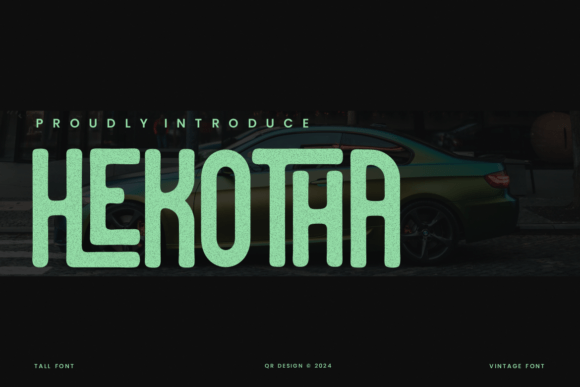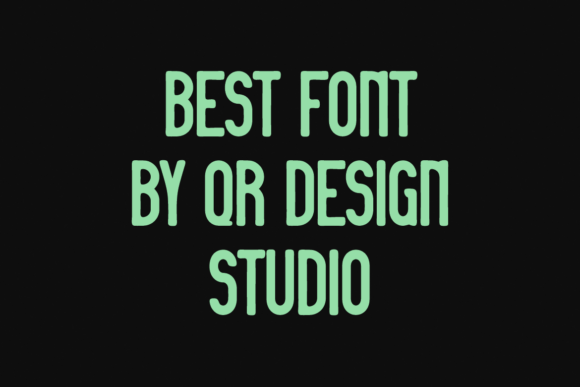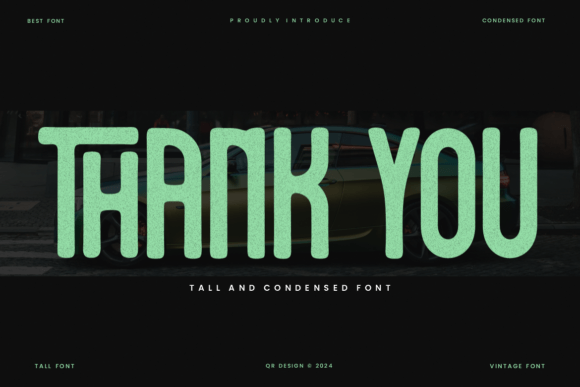
Introduction to Hekotha Font
You know that moment when you’re brainstorming ideas for your next creative project, and the perfect font pops into your mind, elevating your concept to the next level? That’s exactly what happened when designers discovered the Hekotha Font. Its unique blend of modern and vintage elements makes it an instant favorite among creatives.
With its clean, stylized character forms, the Hekotha Font is a game-changer for designers looking to add a high-quality touch to their work. Whether you’re working on branding, editorial layouts, or poster design, this font is sure to make a statement. And the best part? It’s available for free download, making it an accessible design resource for anyone looking to take their creative project to the next level.
One of the standout features of the Hekotha Font is its versatility. Pair it with transparent backgrounds and urban or automotive-themed visuals, and you’ll get a stylish, high-impact finish that’s sure to grab attention. Whether you’re a seasoned designer or just starting out, the Hekotha Font is a valuable addition to your design toolkit.
Key Features of Hekotha Font
- High-quality, professional font suitable for creative projects and design resources.
- Features a transparent background, making it ideal for use on images and other design elements.
- Includes a range of characters and glyphs, including uppercase and lowercase letters, numbers, and punctuation marks.
- Designed with a modern, clean aesthetic, making it perfect for use in logos, branding, and other visual identity projects.
Honest Review: Hekotha Font
I recently stumbled upon the Hekotha Font and I’m excited to share my thoughts on this free design resource. The first thing that caught my attention was the sleek and modern design. ✨ The clean lines and geometric shapes make it perfect for a creative project that requires a touch of sophistication.
However, I do have a few limitations to mention. ⚠️ The font is not available in as many languages as I’d like, which could be a problem for designers working on international projects. Additionally, the font is quite bold, which may not be suitable for all design projects.
Overall, I’m impressed with the Hekotha Font and would definitely recommend it to designers looking for a high-quality, free design resource. Just be aware of its limitations and use it wisely in your creative projects.
Tips for Getting the Most Out of Hekotha Font
To get the most out of Hekotha Font, use it in conjunction with other design resources, such as images and graphics. Experiment with different font sizes and colors to create a unique and visually appealing design.
Common Use Cases for Hekotha Font
Hekotha Font is commonly used in a variety of creative projects, including:
- Brochures and flyers.
- Business cards and letterheads.
- Posters and social media graphics.